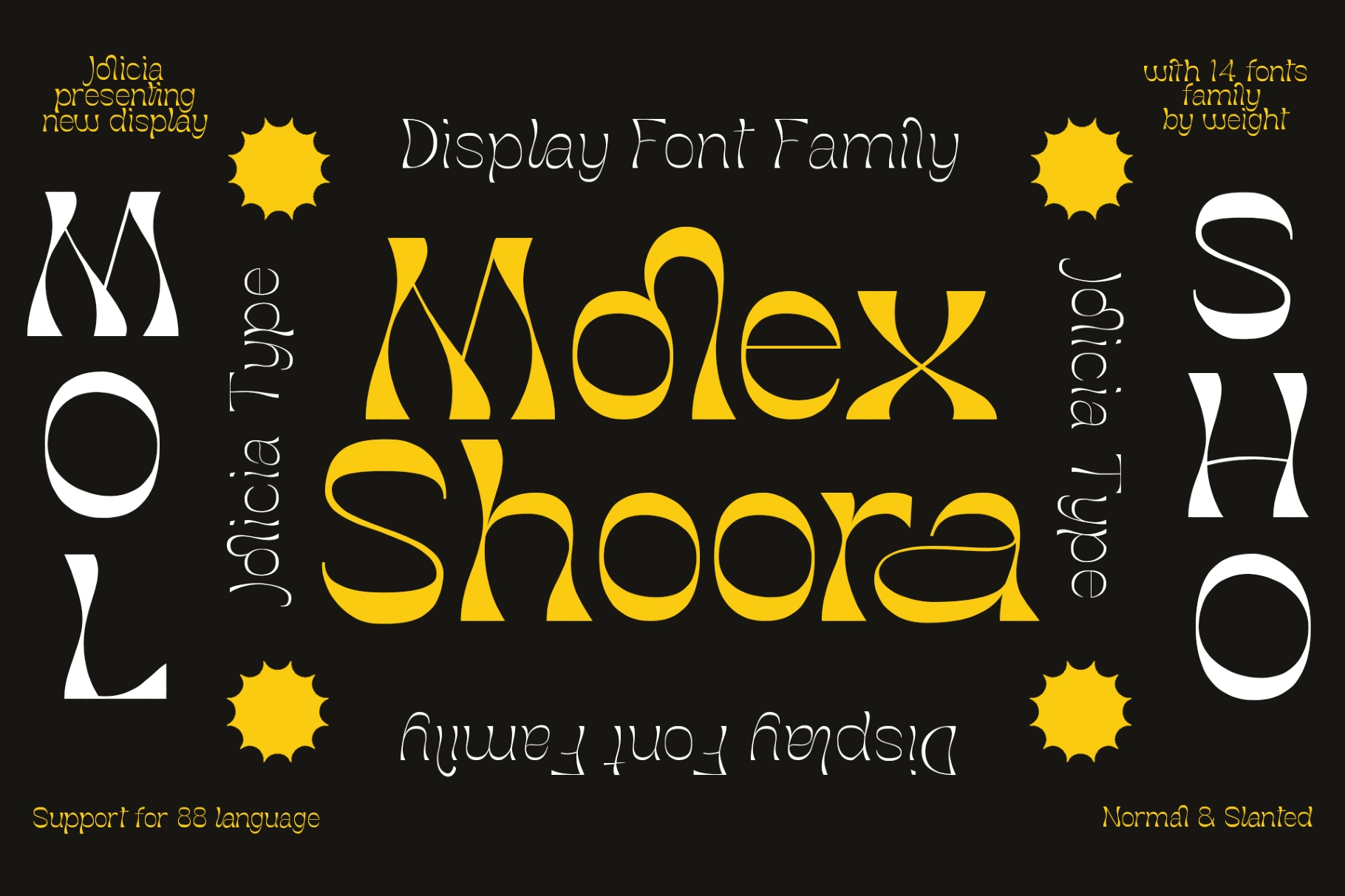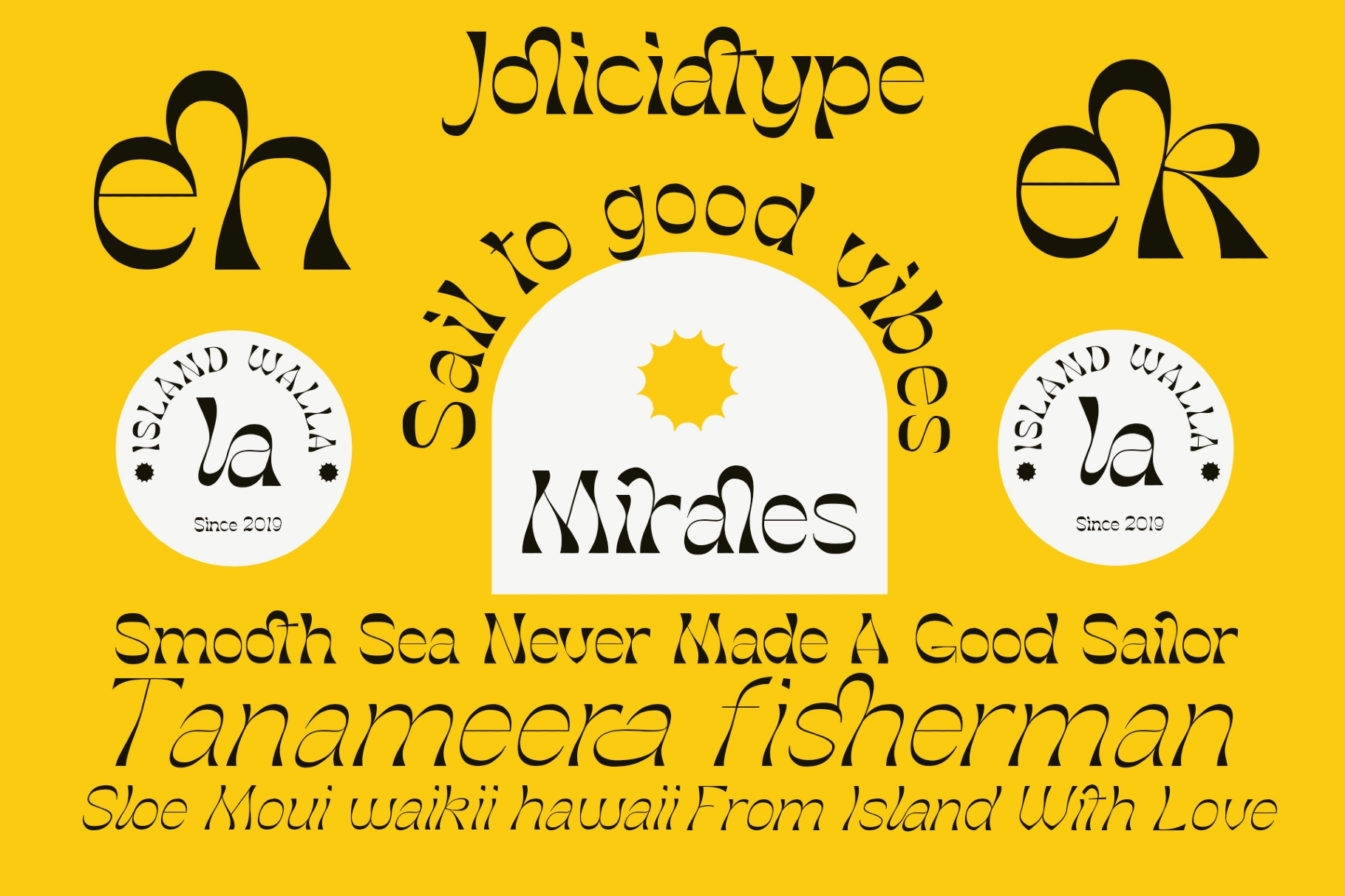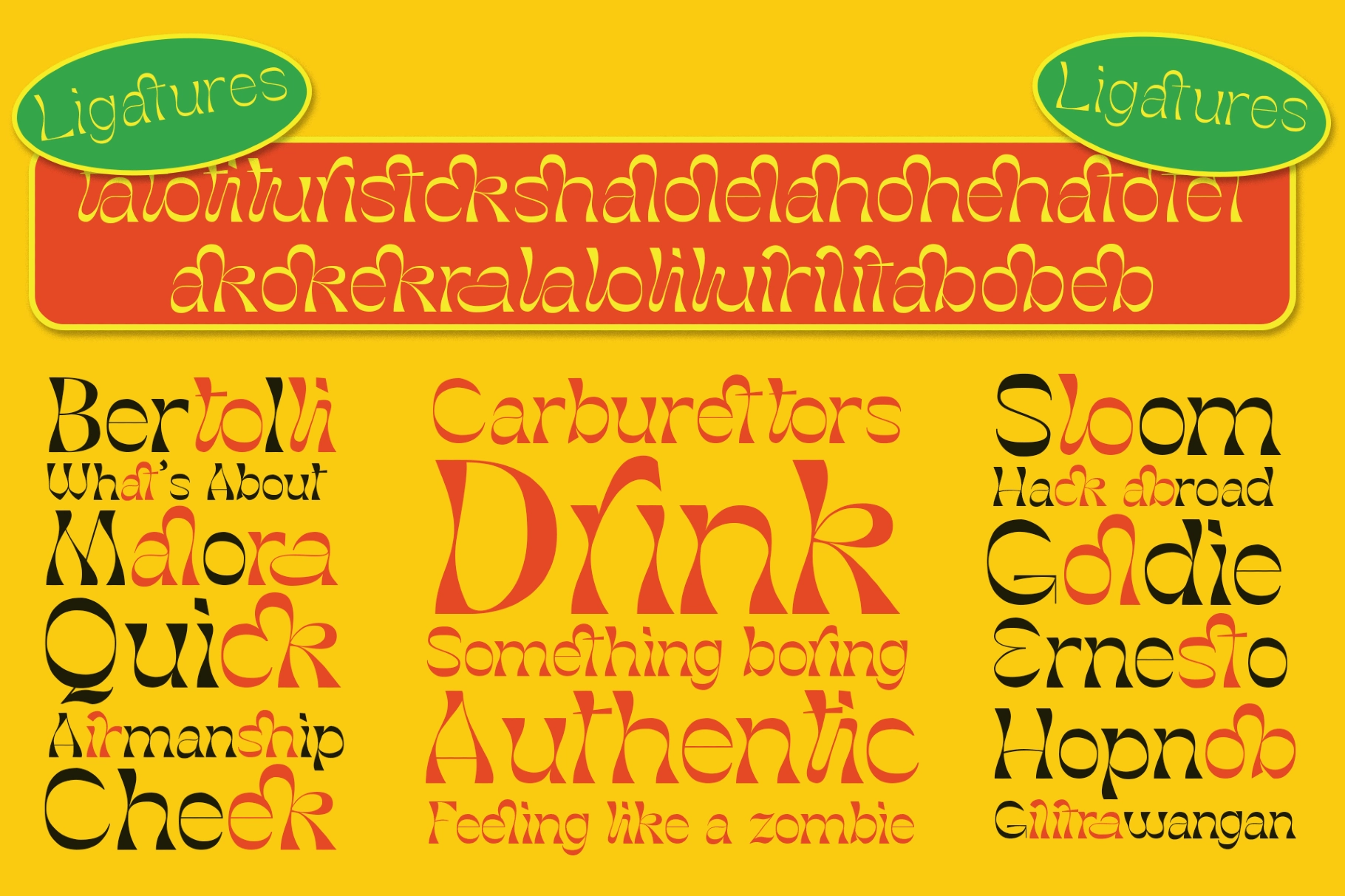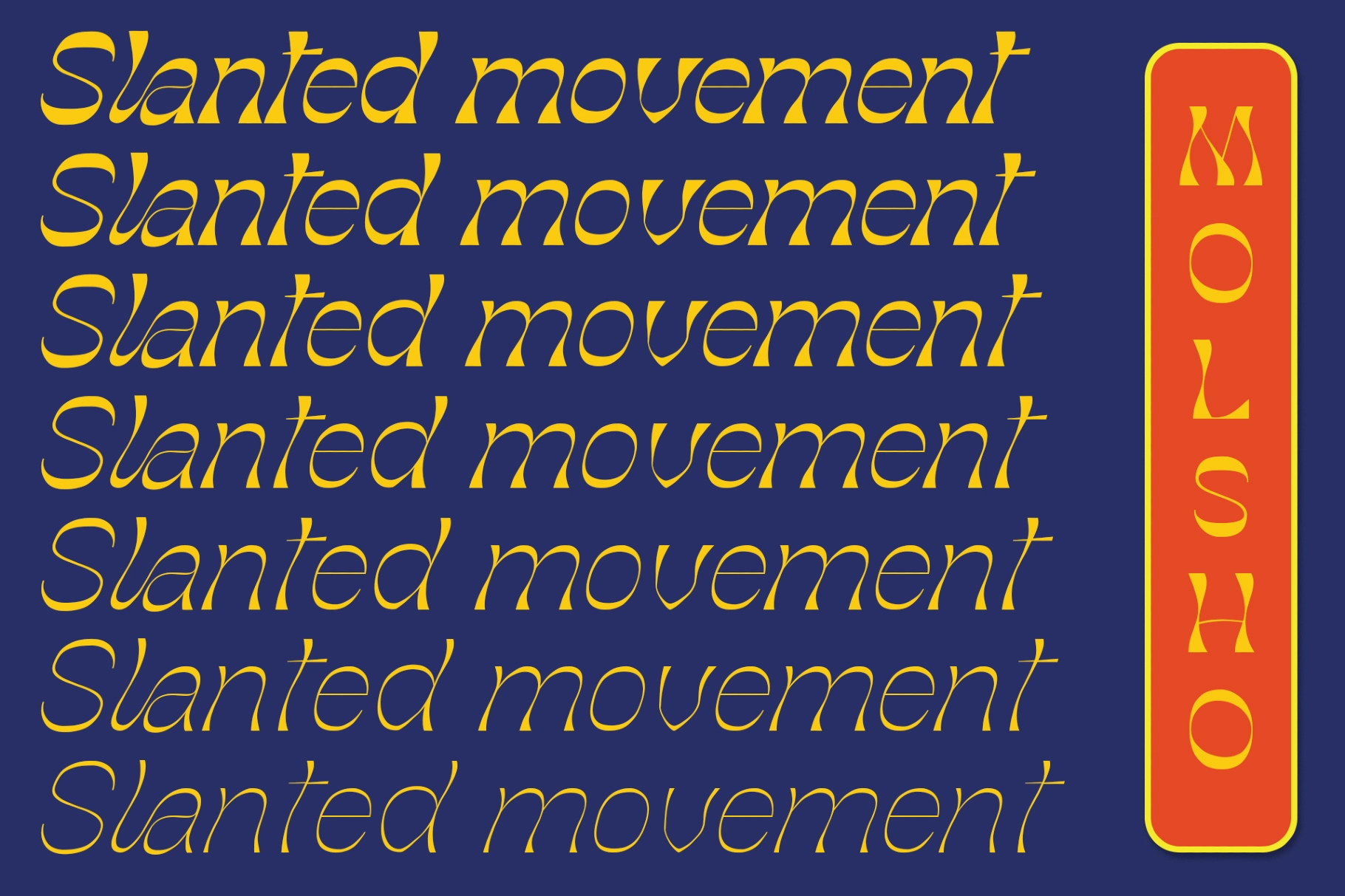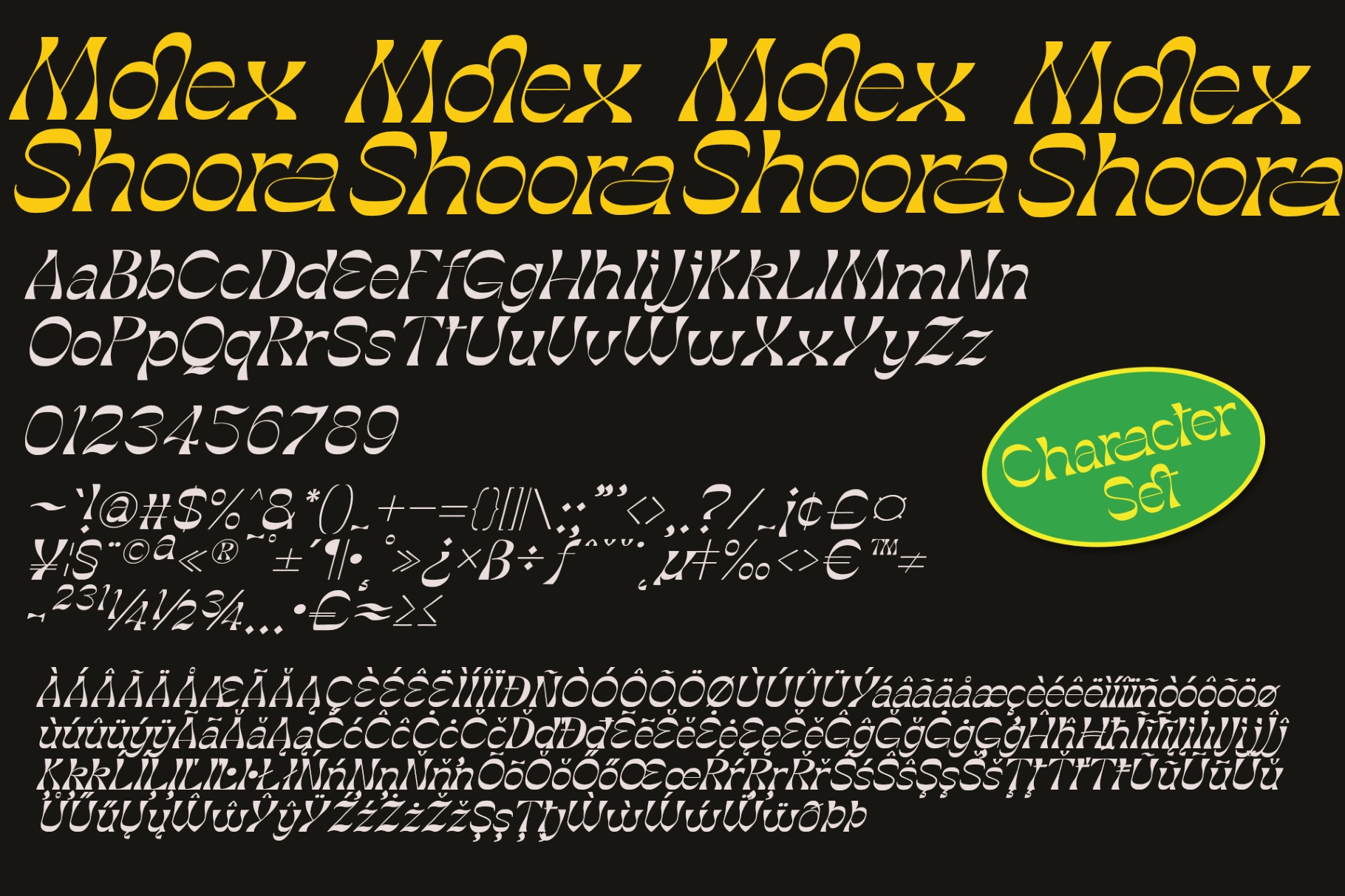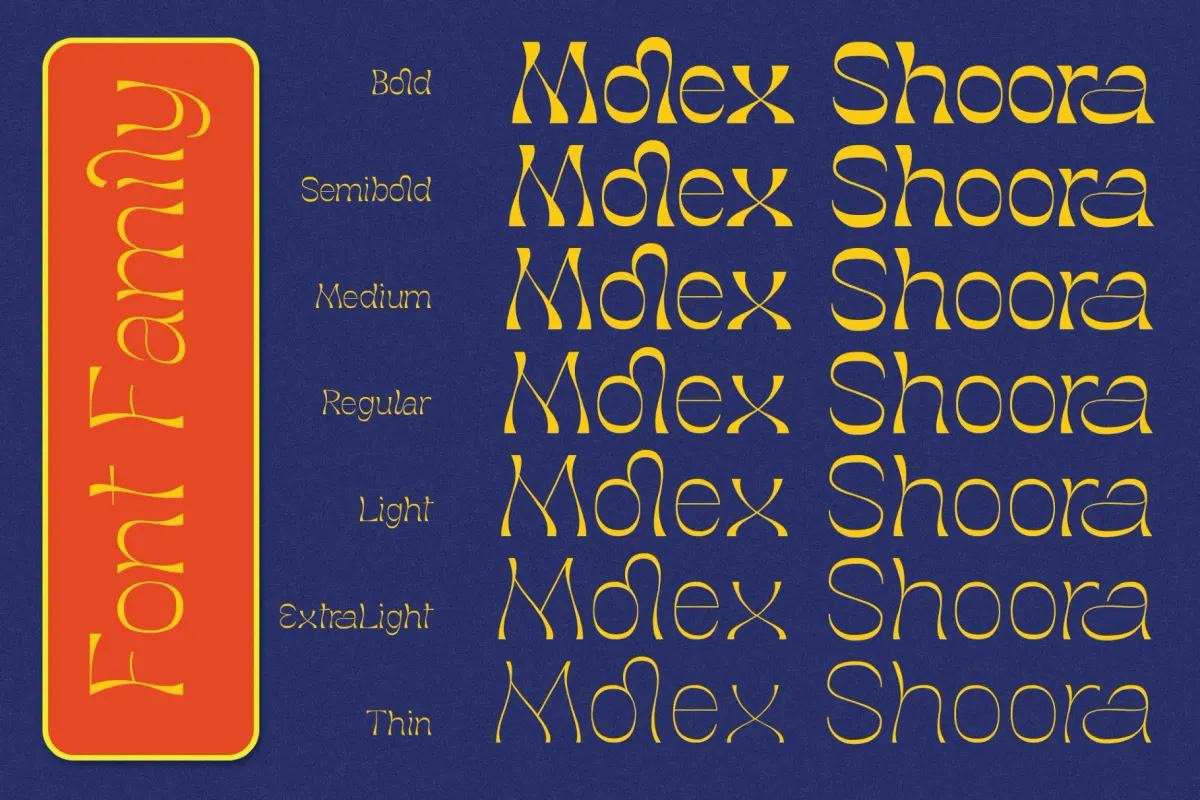
Molex Shoora - Reverse Contrast Font
ThinSlanted
ExtraLightSlanted
LightSlanted
Slanted
MediumSlanted
SemiBoldSlanted
BoldSlanted
Molex Shoora is a retro-inspired display typeface with a bold, playful personality. Each letter is crafted with distinctive thick top and bottom strokes that elegantly taper toward the center, creating a rhythmic and expressive visual flow. Featuring 14 font weights, 31 lively ligatures, and 410 glyphs, Molex Shoora offers flexibility and character for headlines, branding, posters, and packaging. With support for 88 languages, it blends vintage charm with modern versatility.